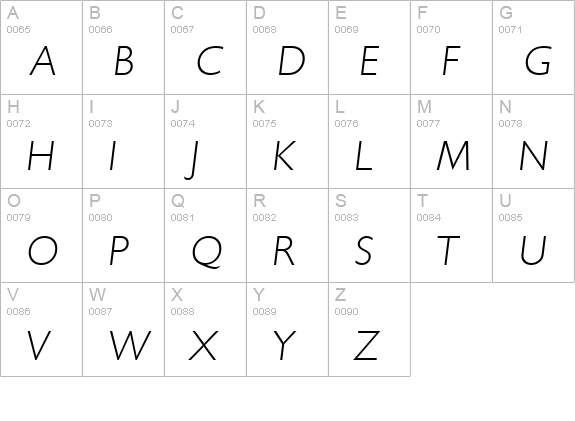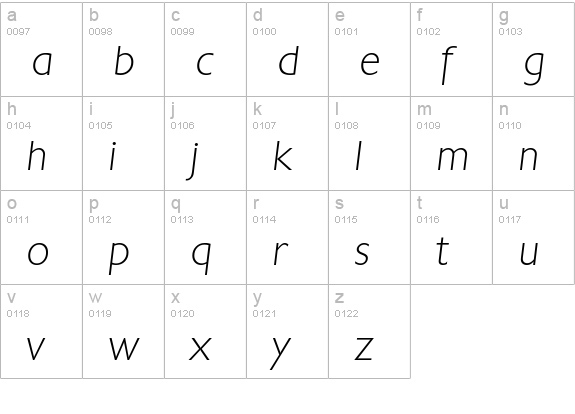
ChantillySerial-Xlight-Italic is a distinctive, italic variant in the ChantillySerial typeface family \xE2\x80\x94 well suited to design and typography projects.
ChantillySerial-Xlight-Italic is a beautifully designed font that exudes elegance and sophistication. Its delicate curves and slanted italics make it perfect for adding a touch of refinement to any project. Whether you're creating invitations, branding materials, or editorial designs, this font will elevate your work to new heights. The best part? ChantillySerial-Xlight-Italic is available for free download at FontsMarket.com. So you can easily access this stunning font and add a touch of luxury to your designs without any cost. Don't miss out on this opportunity to enhance your projects with ChantillySerial-Xlight-Italic's graceful and stylish aesthetic. Download it today and elevate your design game!